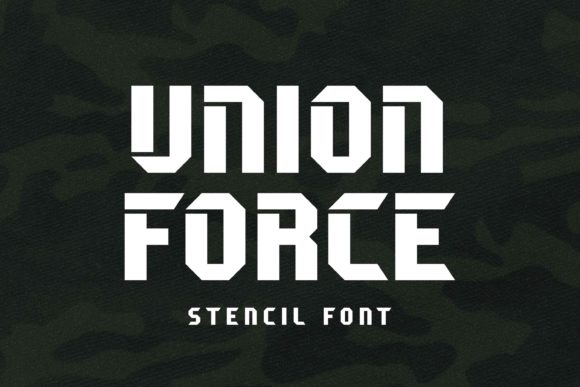
Introducing Union Force, the font that will revolutionize your creative journey. This bold and captivating display font is a masterpiece of abstract shapes, designed to leave an unforgettable impact. Unleash your imagination and let Union Force elevate your projects to new heights of originality and distinction.
With its eclectic beauty, Union Force defies the ordinary, demanding attention and inspiring awe. Its intricate lines and dynamic composition create a visual symphony, captivating your audience and leaving them mesmerized. Whether you're crafting a modern CV, designing a striking poster, or creating eye-catching social media graphics, Union Force is the perfect font to make your ideas shine.
Experience the power of typography as Union Force transforms your words into works of art. Its bold strokes and distinctive character command presence, ensuring your message is heard loud and clear. From elegant invitations to dynamic presentations, Union Force adds a touch of sophistication and creativity that will leave a lasting impression.
Embrace the possibilities and harness the boundless potential of Union Force. Let its unique style ignite your creativity and watch as your projects come alive with a captivating allure. As you explore the endless design possibilities with Union Force, you'll discover a new world of self-expression and artistic freedom.
Join the creative revolution and make Union Force your font of choice. Embark on a journey of visual storytelling and experience the transformative power of typography. Let Union Force be your guide as you create designs that captivate, inspire, and leave an indelible mark on the world.